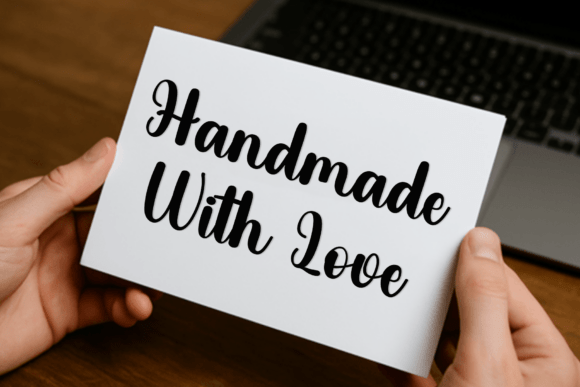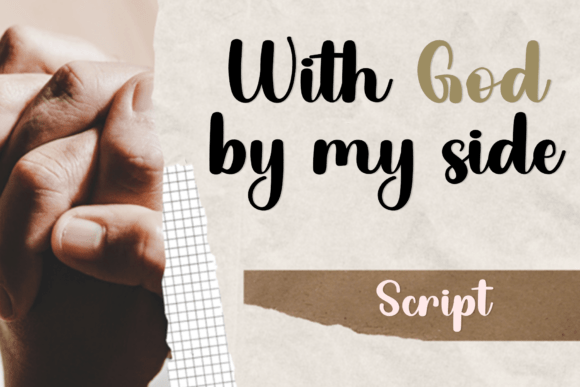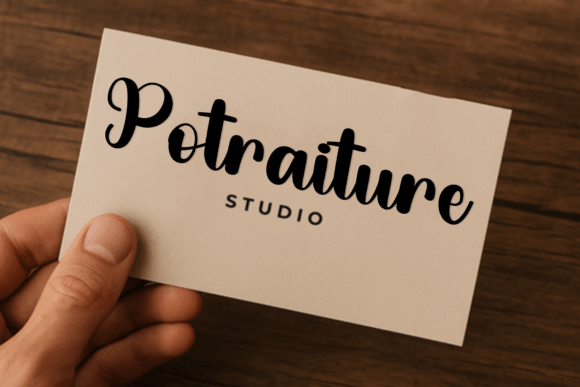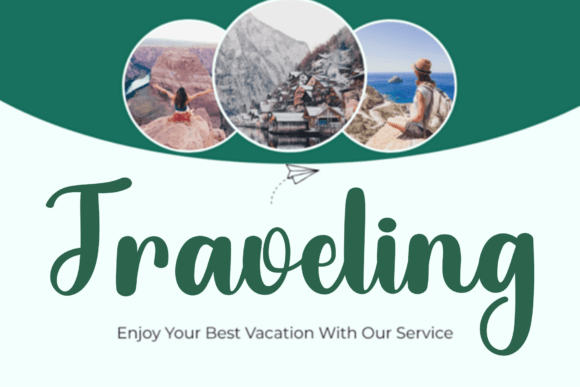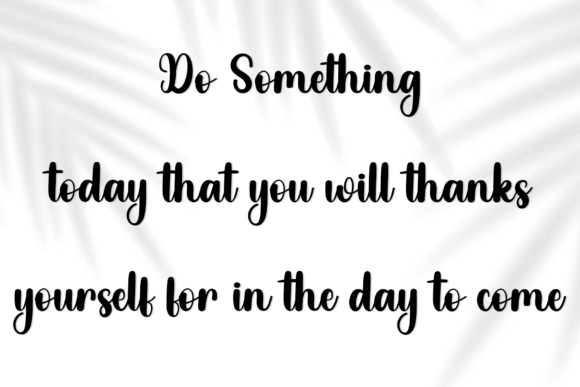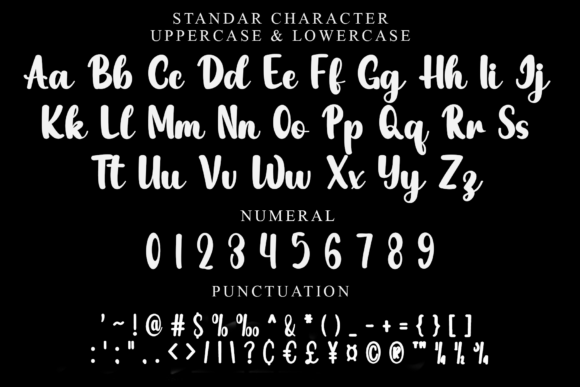
Introduction to High Island Font
Have you ever stumbled upon the perfect font that captures the essence of a creative moment? For designers, finding that special font can be a game-changer. It’s the moment when a project comes together, and the right typography makes all the difference. For me, that moment was when I discovered the High Island Font – a casual and creative font that exudes warmth and friendliness.
With its round, playful strokes, the High Island Font creates a relaxed and approachable feel, perfect for personal projects, invitations, and social media graphics. Its charming, hand-drawn aesthetic adds a fun and unique touch to any design, making it a valuable resource for designers looking to elevate their creative projects. Whether you’re working on a high-quality design or just need a free download for a quick social media post, the High Island Font is an excellent choice.
- Unique characteristics: The font features a unique, hand-drawn style with intricate details and subtle textures.
Honest Review: High Island Font
I recently had the chance to work with the High Island Font, and I must say it’s a great addition to my design arsenal. The font has a unique and elegant feel to it, making it perfect for creative projects that require a touch of sophistication.
Here are some of the things that I like about the High Island Font: ✨
- High-quality design that’s perfect for print and digital use
- Wide range of font styles and weights to choose from
However, there are a few limitations to keep in mind: ⚠️
- The font may not be suitable for very small text sizes, as it can become difficult to read
Overall, I’m really impressed with the High Island Font. It’s a great design resource that can add a lot of value to your creative projects. I would definitely recommend it to designers looking for a high-quality font that’s easy to work with.
Tips for Getting the Most Out of High Island Font
Use High Island Font in creative projects that require a high-quality, elegant font. Experiment with different font sizes and styles to create visual interest. You can also combine the font with other design resources, such as images and shapes, to create a unique design.
High Island Font is commonly used in wedding invitations, business cards, and other design projects that require a sophisticated and elegant look. It’s also a great font to use for free download and personal projects.